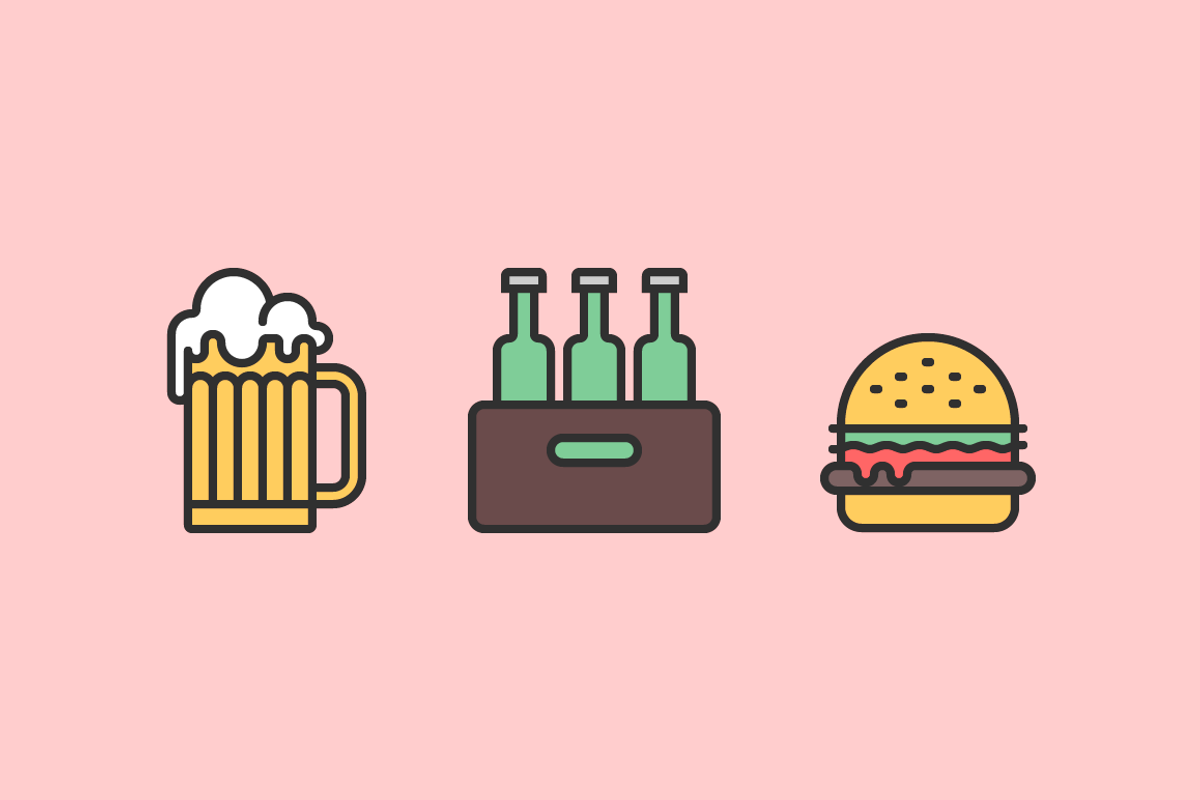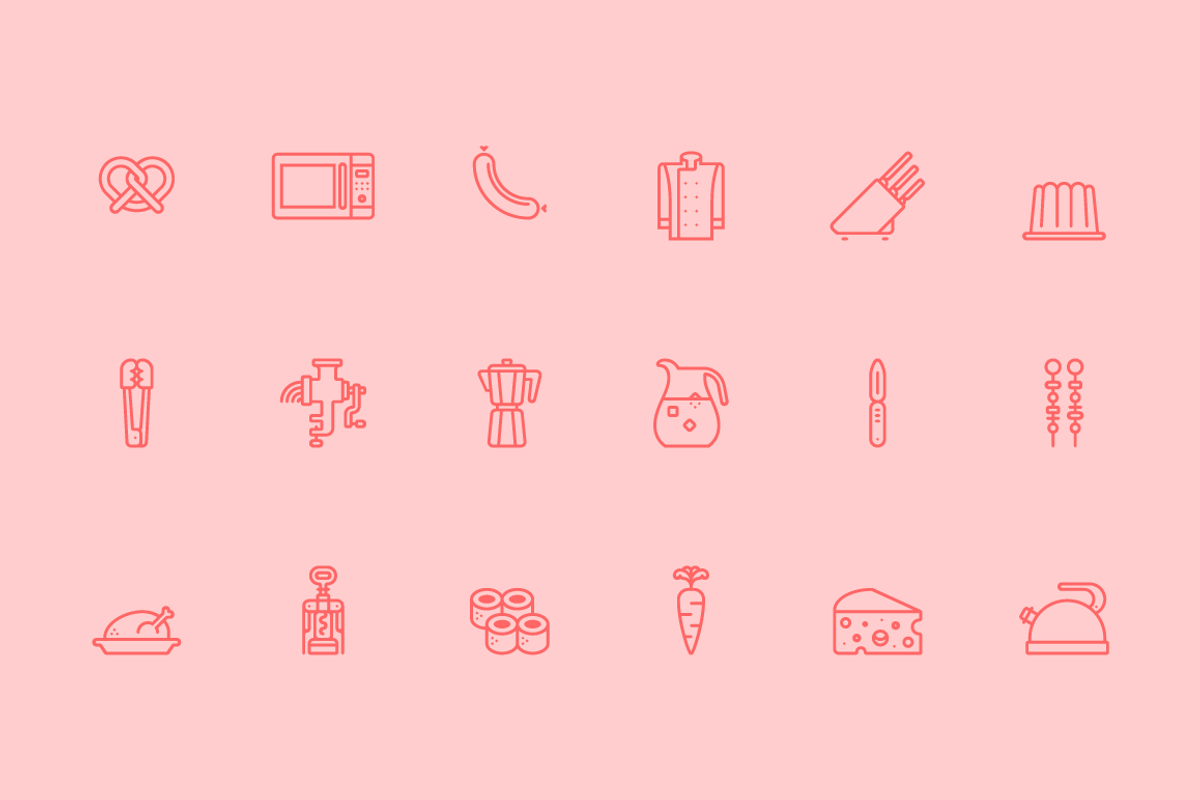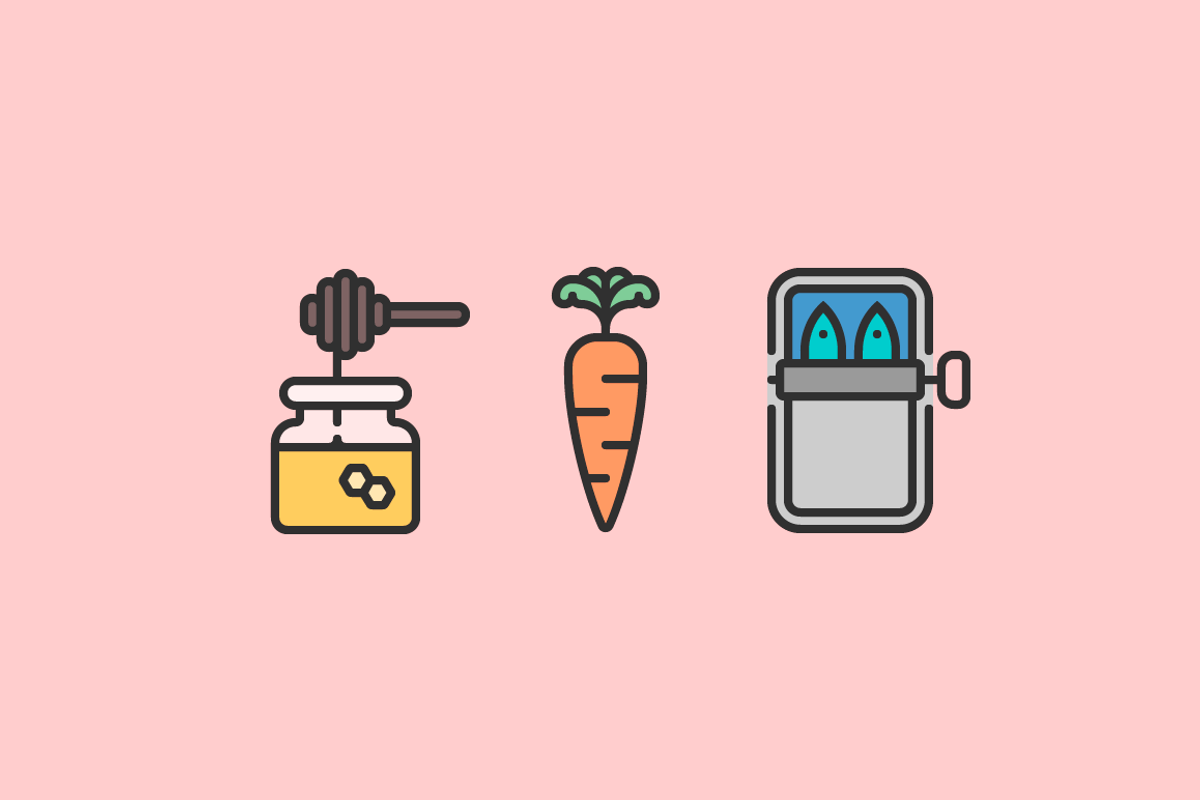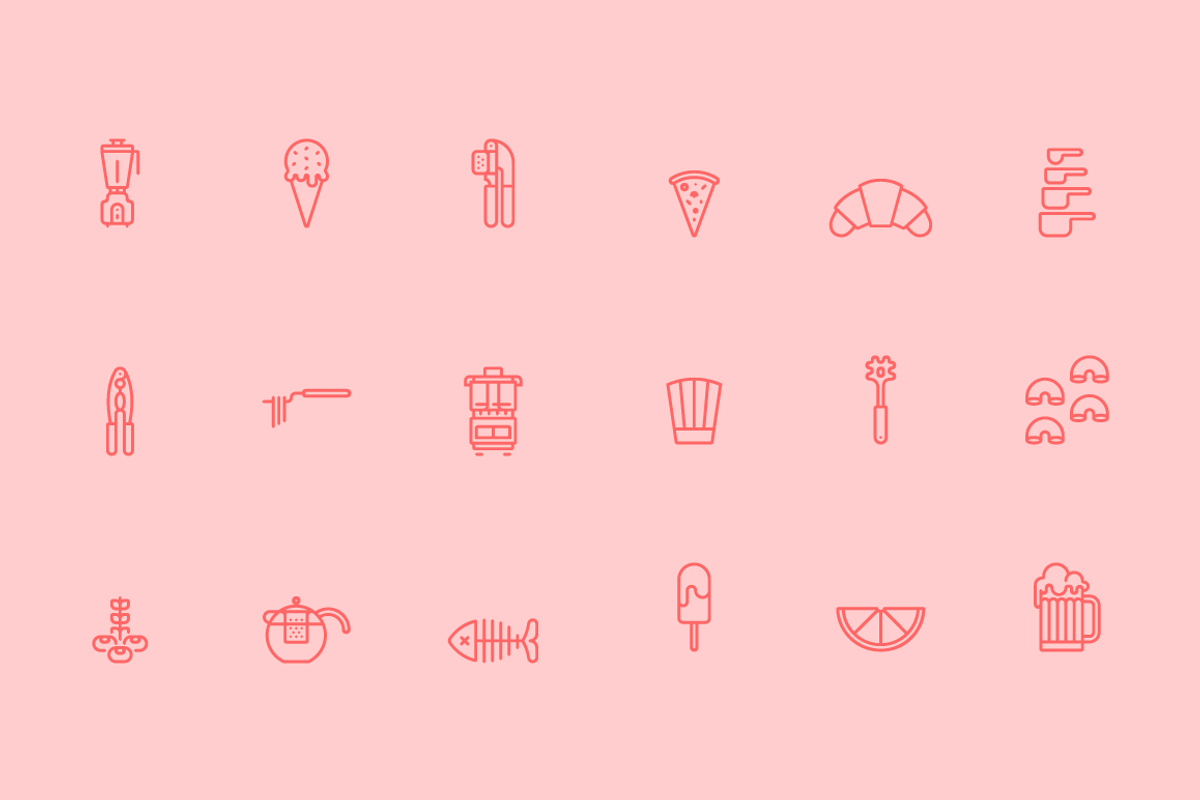
RNS Pictográfica Cocina
RNS Pictográfica Cocina by RNS Fonts is a font selected for branding, posters, packaging, typography.
Why RNS Pictográfica Cocina is worth a look
RNS Pictográfica Cocina by RNS Fonts fits naturally into Branding, posters, packaging, typography.